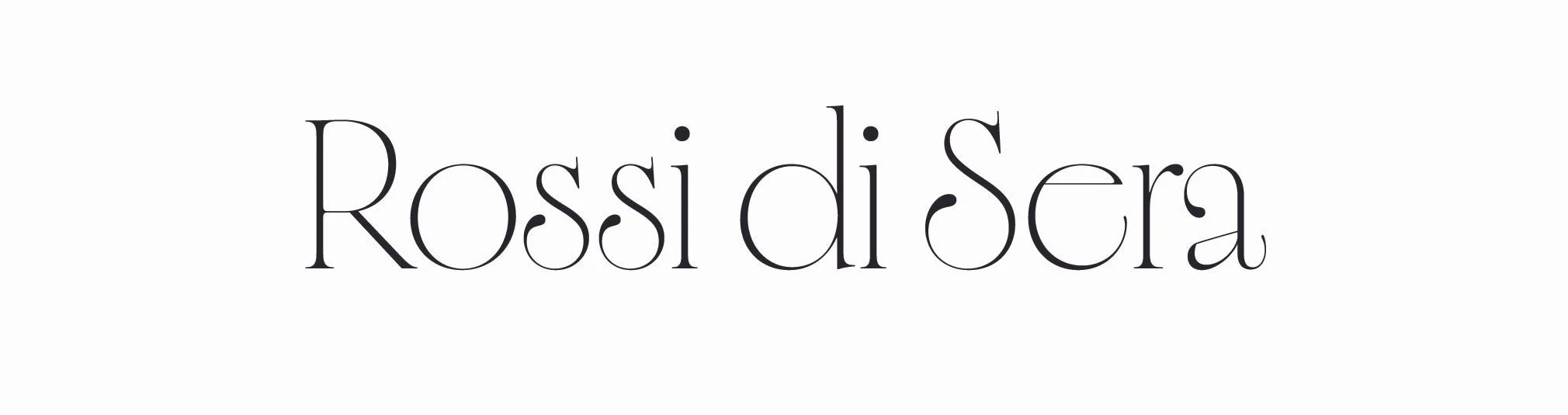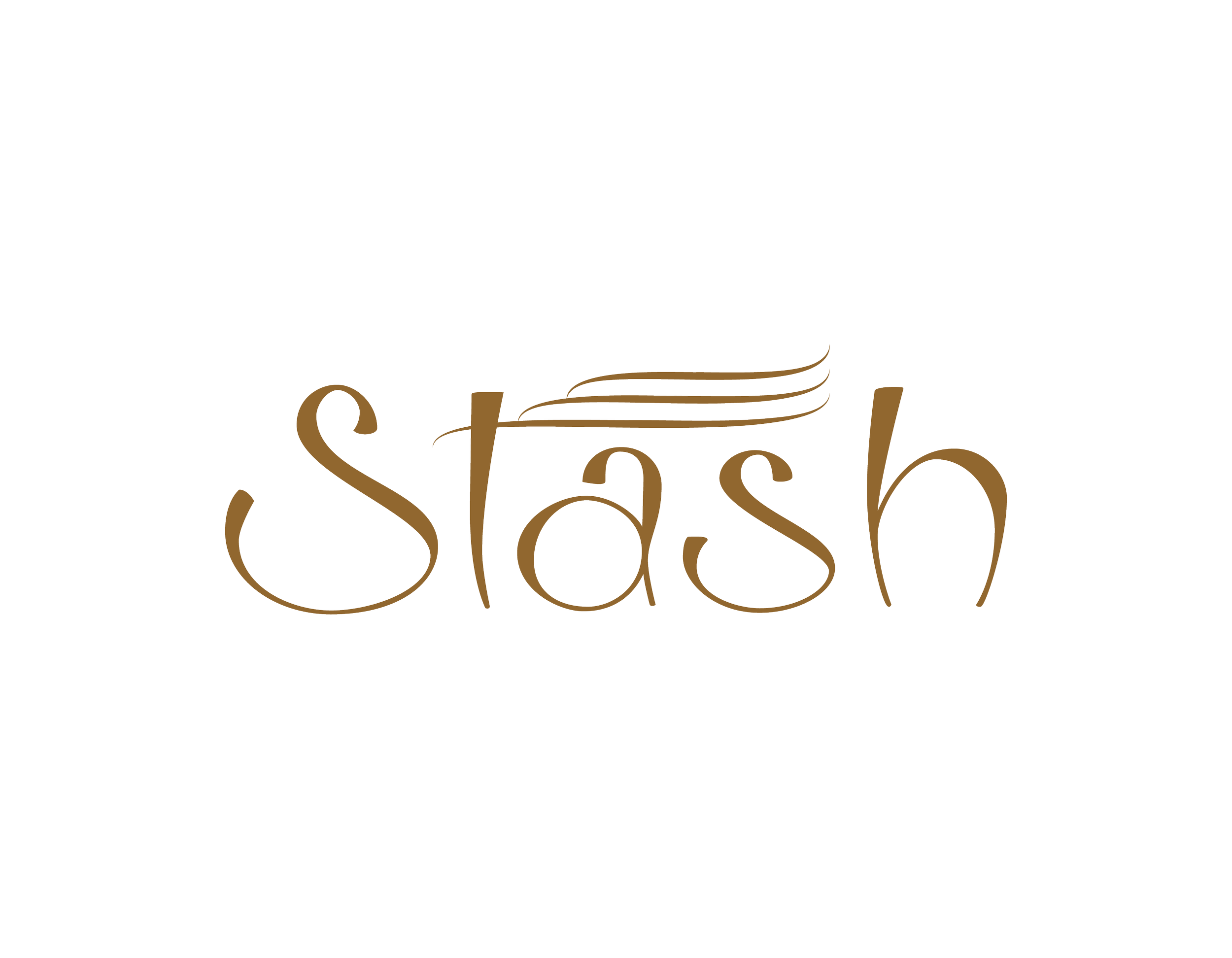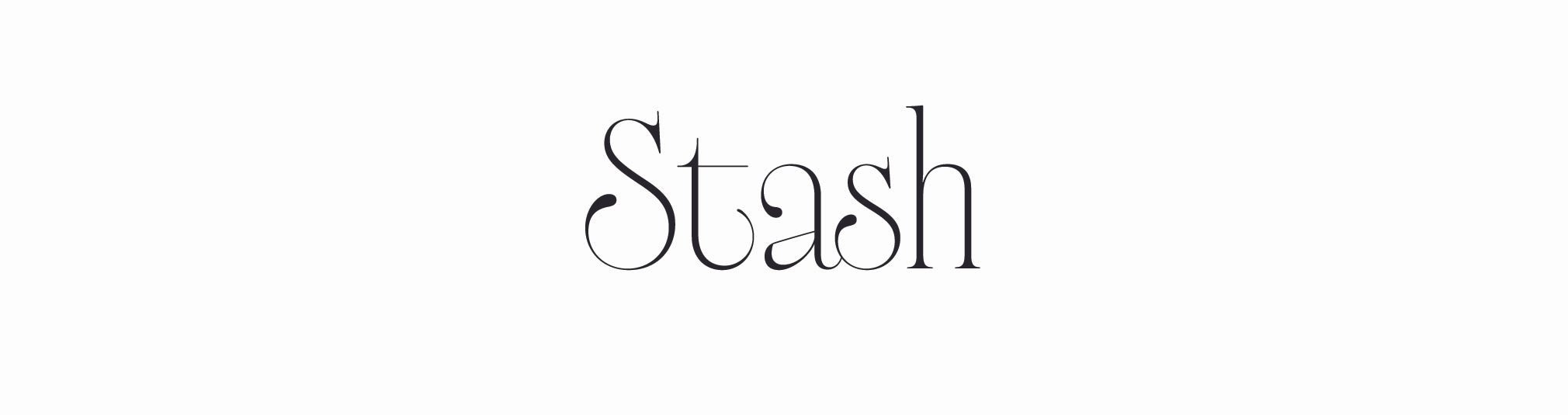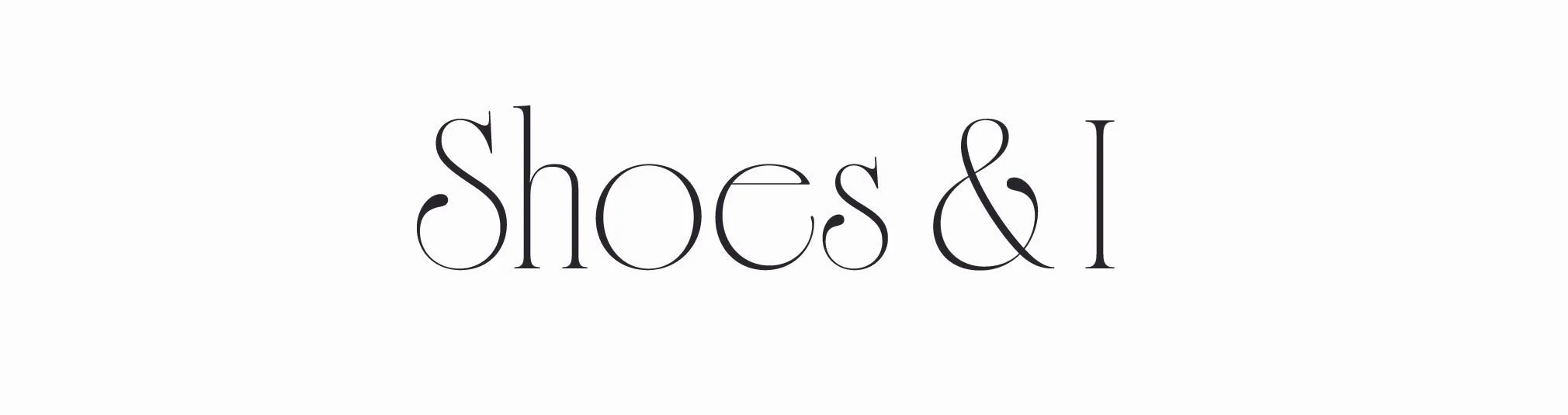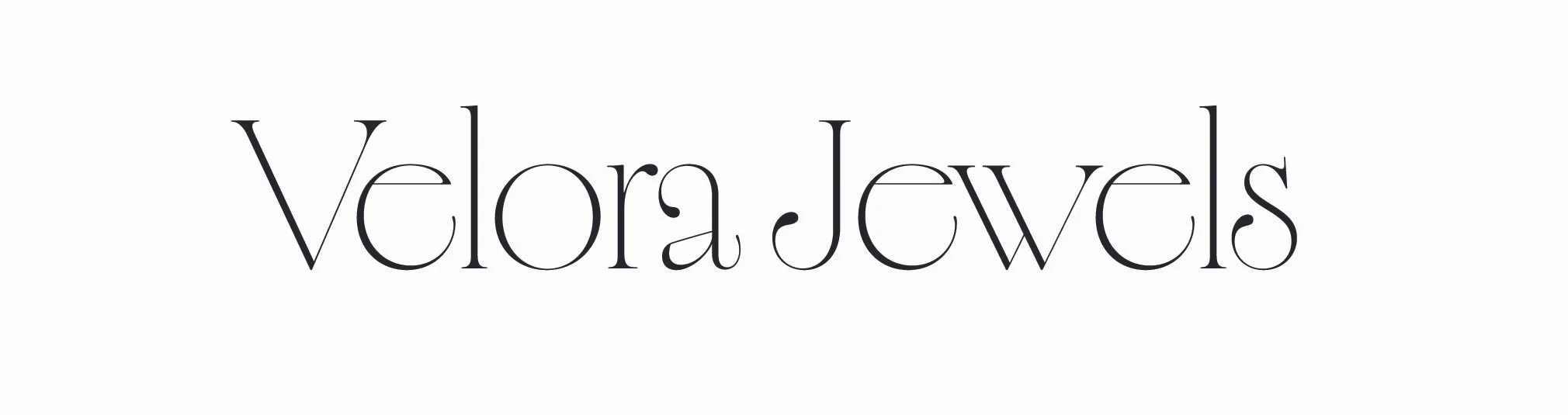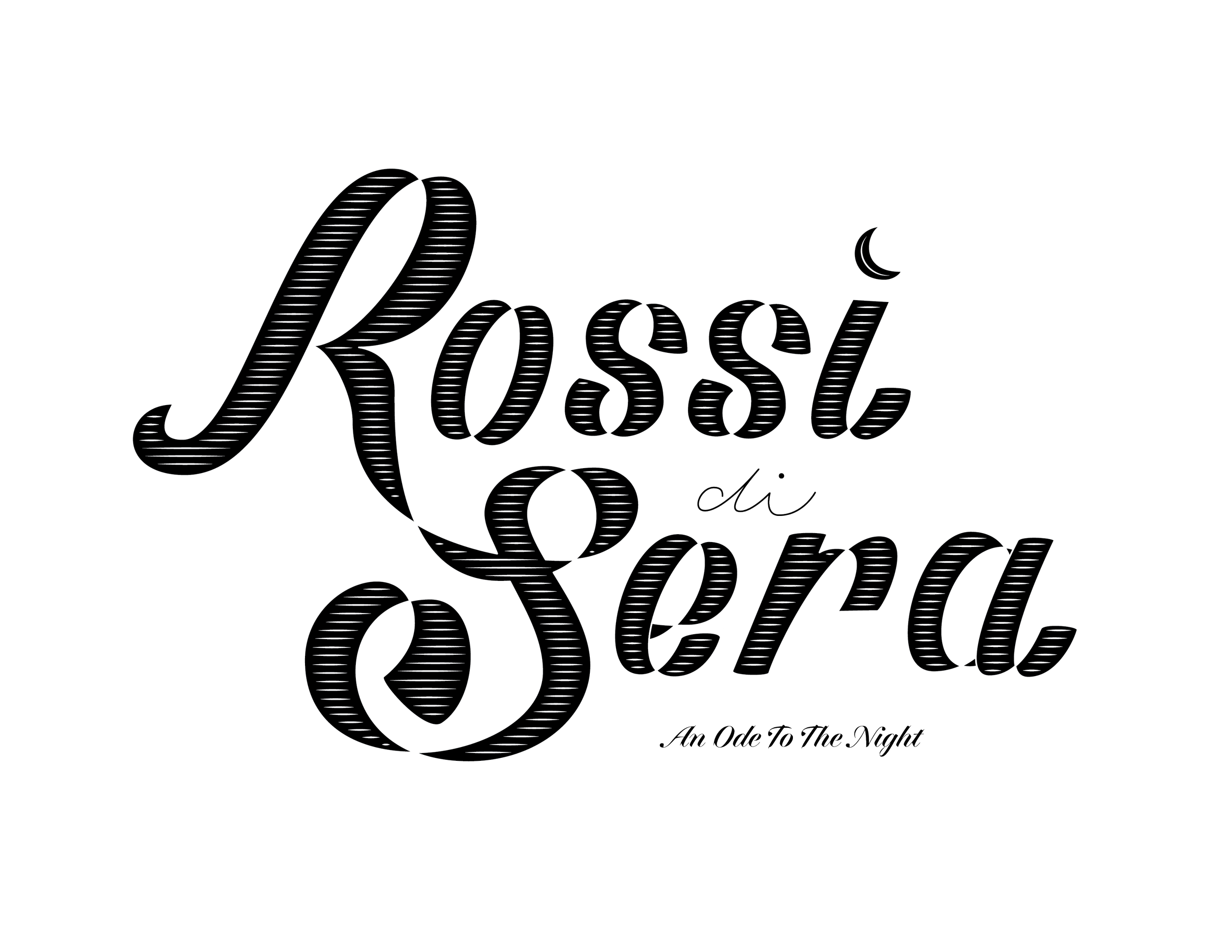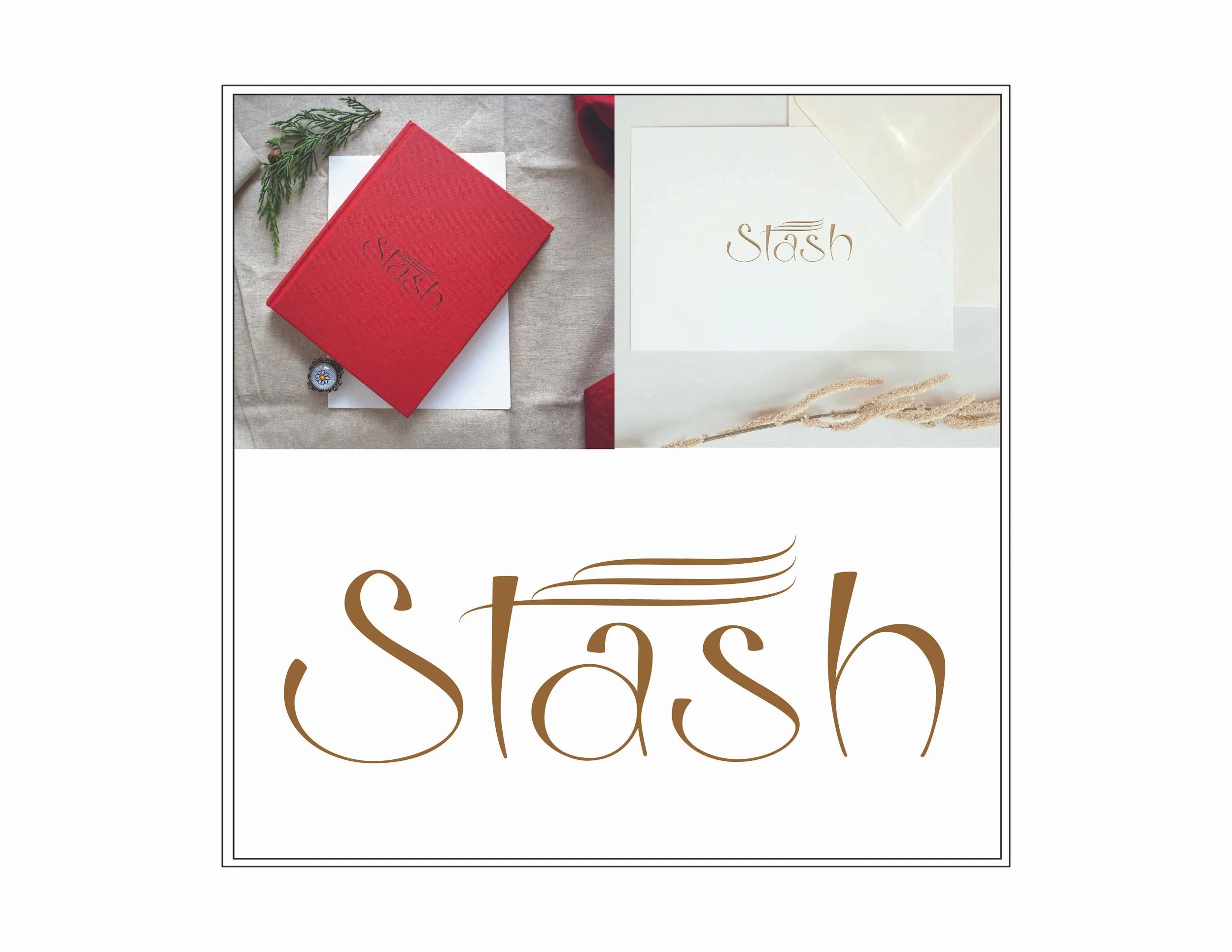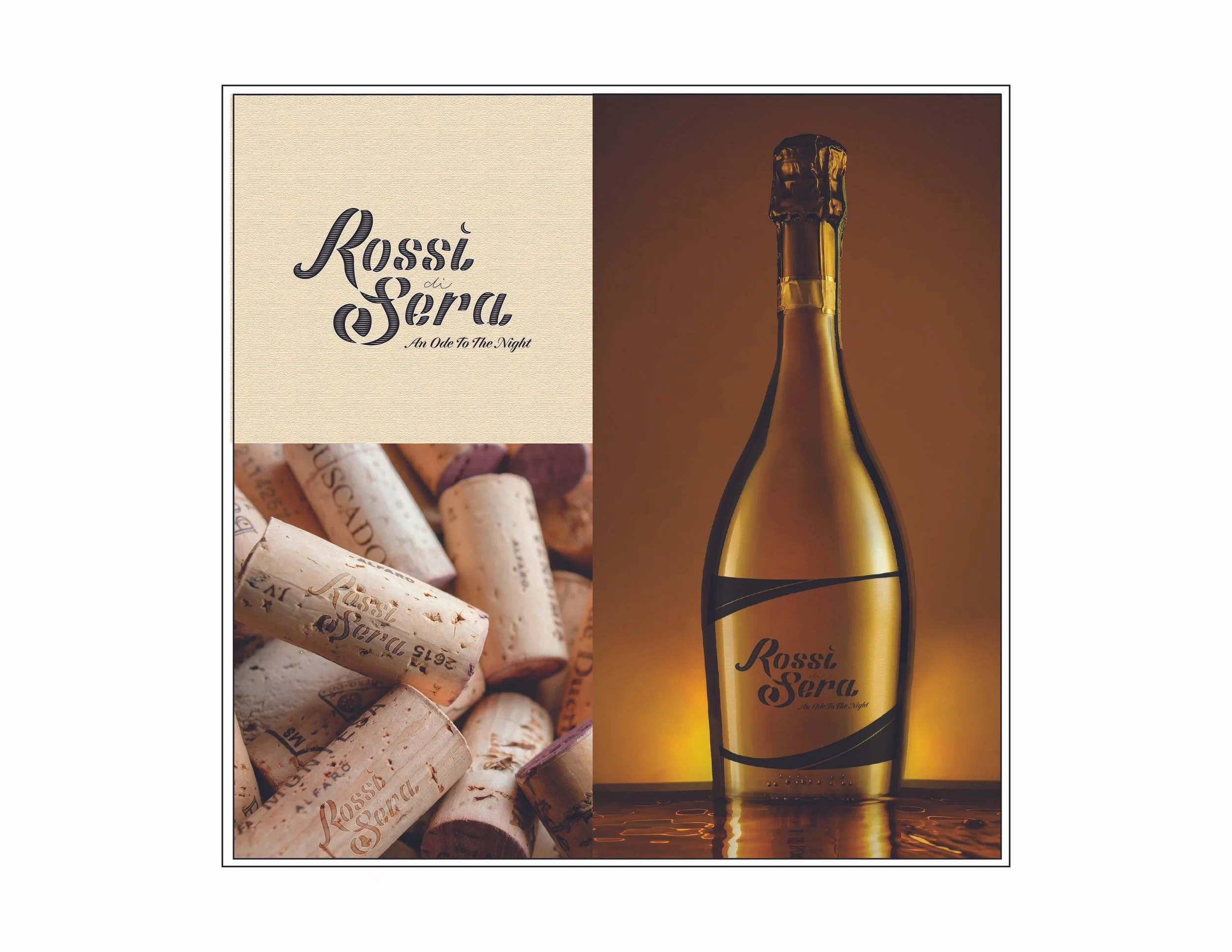
A refined destination for luxury footwear, where craftsmanship meets quiet confidence.
Shoes & I explores the intimate relationship between shoe and wearer—how a single piece can define presence, posture, and expression. Through timeless silhouettes, elevated materials, and considered details, the brand brings individuality into focus.
Rooted in my enduring love for shoes—and their power to shape an entire look—this identity is an exercise in restraint and precision. Every element is designed to feel personal yet enduring, positioning Shoes & I as a modern luxury house where artistry replaces excess, and style speaks with quiet authority.
A sanctuary for thoughts, crafted through paper, ink, and intention.
Stash is a journal and fine paper company that honors the ritual of writing. Through tactile materials and typographic clarity, the brand elevates everyday expression into something lasting.
Writing has always been a way for me to make sense of the world—to give weight to fleeting thoughts and permanence to quiet moments. Stash is an extension of that belief: each piece is designed to be kept, revisited, and lived with. The identity positions the brand as a refuge for those who value reflection, craftsmanship, and the enduring beauty of the written word.
Timeless jewelry shaped by balance, precision, and quiet strength.
Velora Jewels embodies a refined duality—where sculptural presence meets delicate detail. The identity reflects a harmony of strength and softness, expressed through form, proportion, and subtle nuance.
Each piece is conceived as an enduring object of meaning, designed to be worn with intention and carried through time. Velora is not about ornament, but essence—positioning the brand as a study in modern heirlooms, where elegance is felt rather than declared.
An evening wine shaped by the poetry of twilight.
Rossi di Sera captures the quiet depth of dusk—rich, layered, and contemplative. Deep tones, refined lettering, and subtle contrasts reflect a sensory experience that unfolds slowly.
For me, wine is not an escape, but an invitation—to pause, to feel, to notice. It opens a space where everyday moments become more vivid, more present. Rossi di Sera is an ode to that ritual: to unhurried evenings, candlelit conversations, and a sophistication that lingers long after the night settles in.